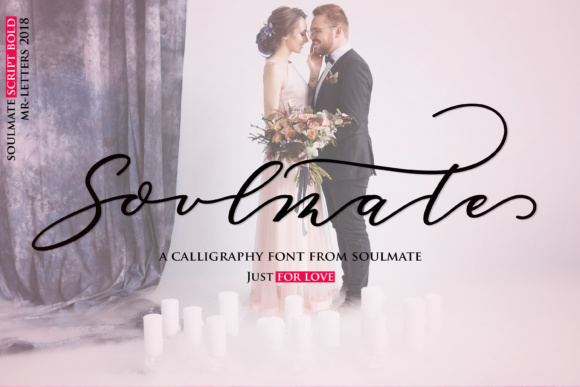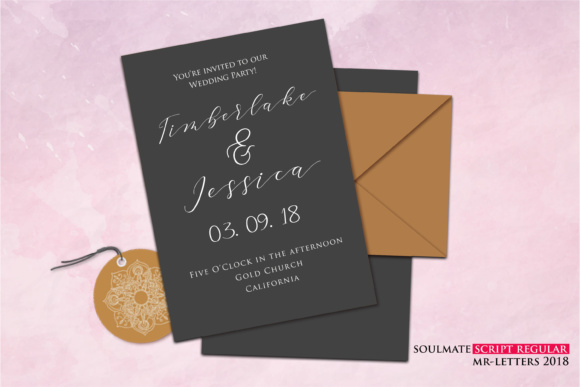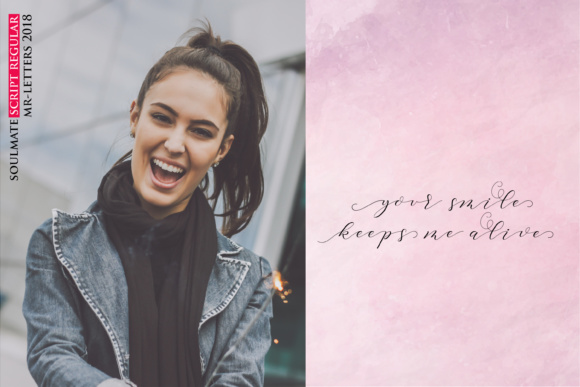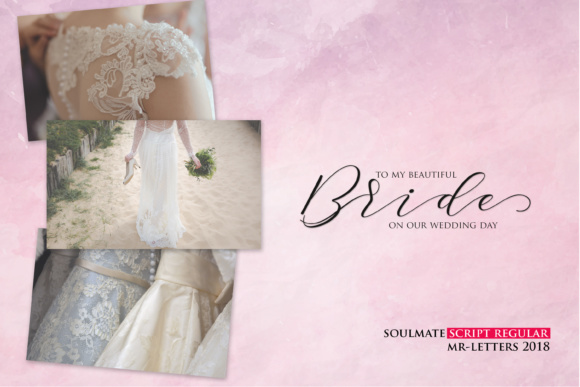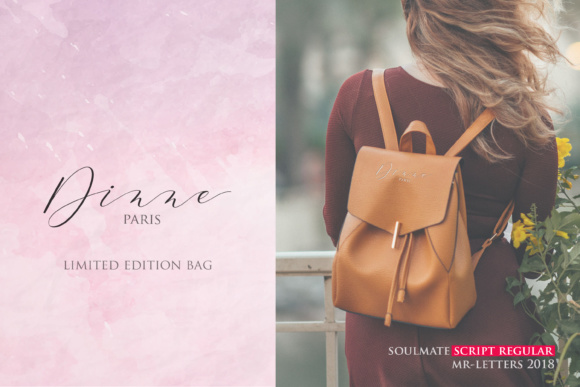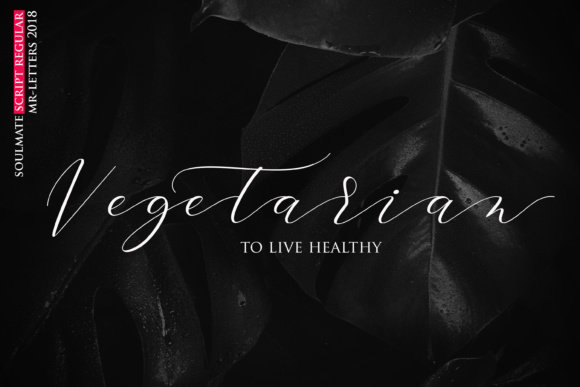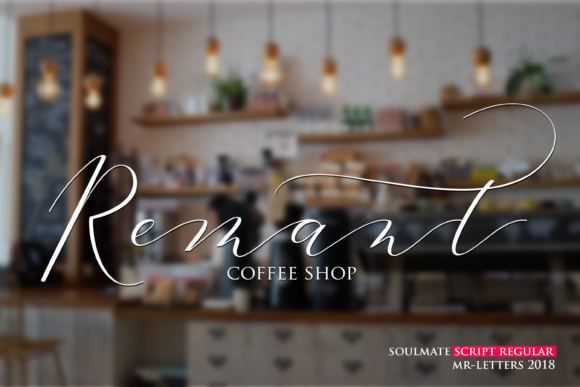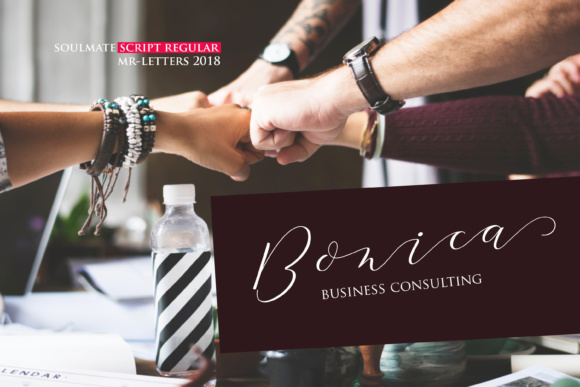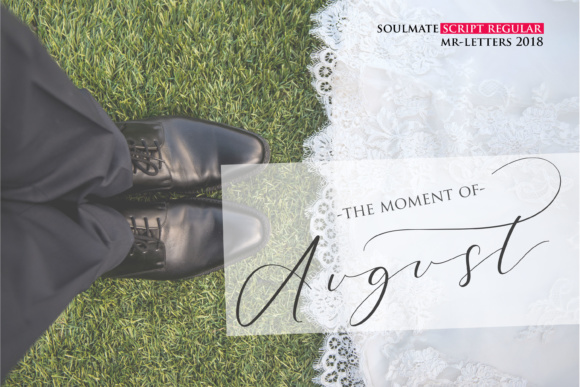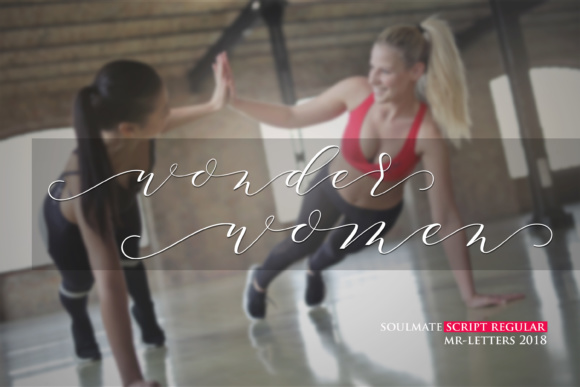
Soulmate Script Font
About Soulmate Script Font
Soulmate Script is a soft and beautiful font that has a connection to the upper part of the letter. This is something unique but very beautiful, luxury and charming. Soulmate is designed to complement your design by making amazing creations.
Soulmate Script is perfect for branding, wedding invitations, magazines, mugs, business cards, quotes, and much more.